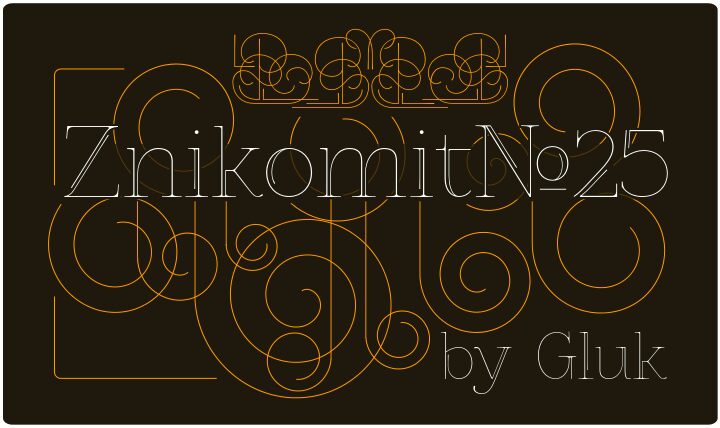
Znikomit No25, created by Gluk, is a free retro display serif with the poised, high-contrast drawing of an eccentric fashion masthead. Very thin hairlines meet broad, swelling curves, and many letters rise into unusually tall, narrow silhouettes with restrained ornament. The details are deliberately theatrical and unmistakably refined.
Small independent boutique fashion labels or fragrance brands could use it for wordmarks and packaging, where its elegant proportions suggest luxury with a slightly offbeat edge. It also suits editorial covers and cultural event posters, since the looping curves, sharp joins, and occasional interrupted strokes can echo line illustration or ornamental borders.
ZnikomitNo25 is based on my font, Znikomit.